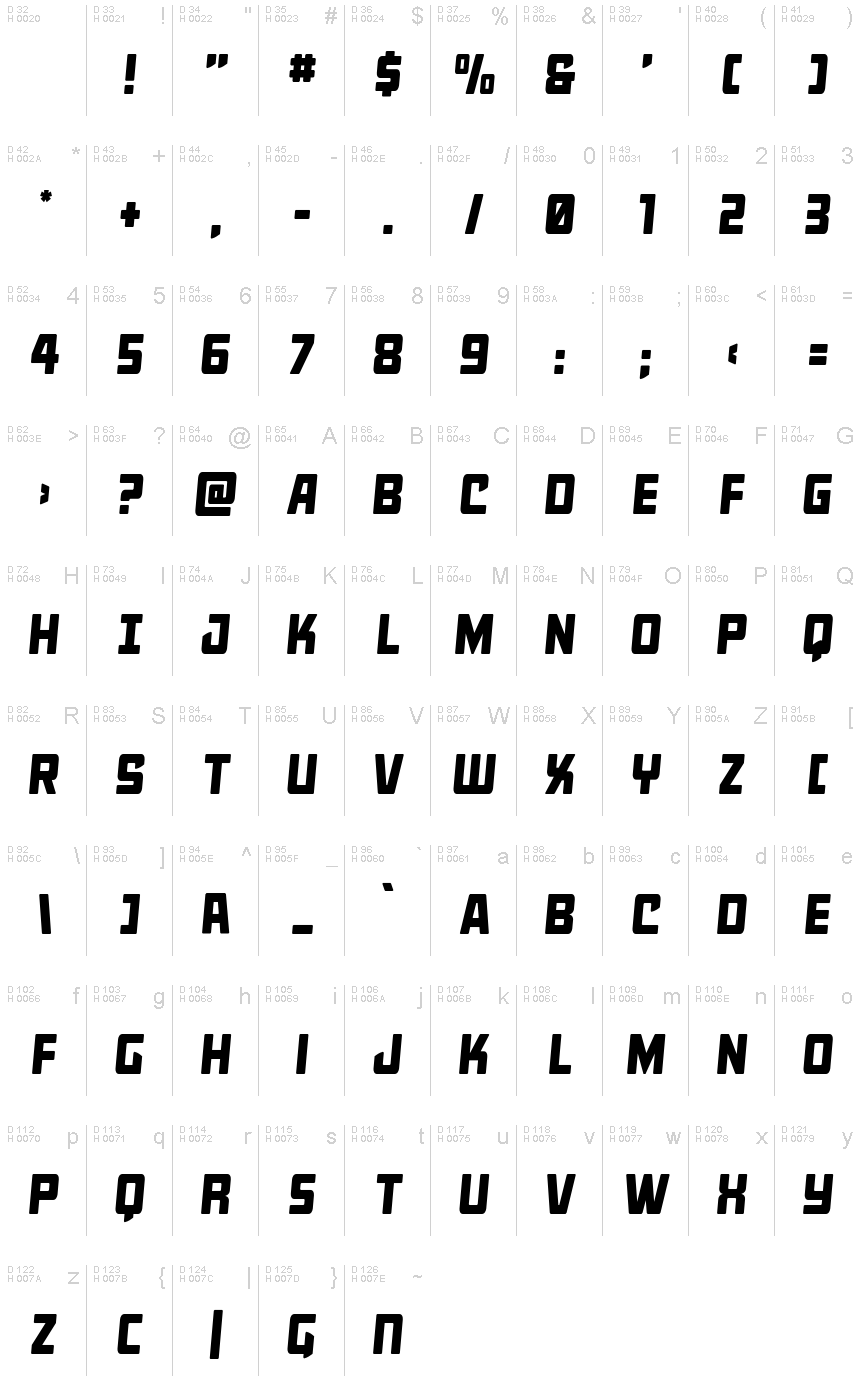
Quicky Nick Slight-Straight
Quicky Nick is a bold, dynamic display font designed by Iconian Fonts. This condensed techno-inspired typeface exudes a striking, futuristic aesthetic, with its angular lines and sleek, slightly straight appearance. The font's unique character shapes and distinctive personality captivate the eye, making it an impactful choice for eye-catching headlines, logos, and branding applications.
Quicky Nick's condensed width and strong, geometric forms lend themselves well to a variety of contemporary design projects. Its bold presence and techno-inspired style make it a versatile option for projects in the fields of technology, gaming, music, and even fashion, where a modern, attention-grabbing aesthetic is desired.